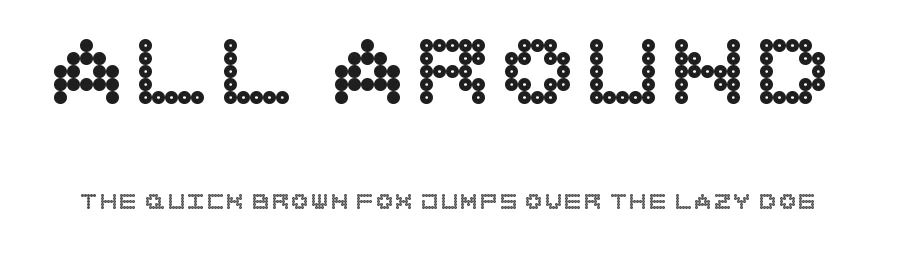
About Simple Stitch Font
A slightly less resource-intensive alternative to our font "Xmas Sweater Stitch" which you can also find on this site.
Simple Stitch Font is a decorative font that shines as a display or heading face. Pair it with a clean sans-serif or serif font for body text β the contrast creates a clear hierarchy while the two styles stay balanced and easy to read.